10 Free Calligraphy Fonts Download: In this collection, we are featuring the best calligraphy fonts. These fonts include cursive fonts, handwriting fonts, classics, dingbat and more. These fonts are excellent to use for your next design project. Many of these fonts are free to use. Please check the original license before using.
Hunter River – Free Signature Font
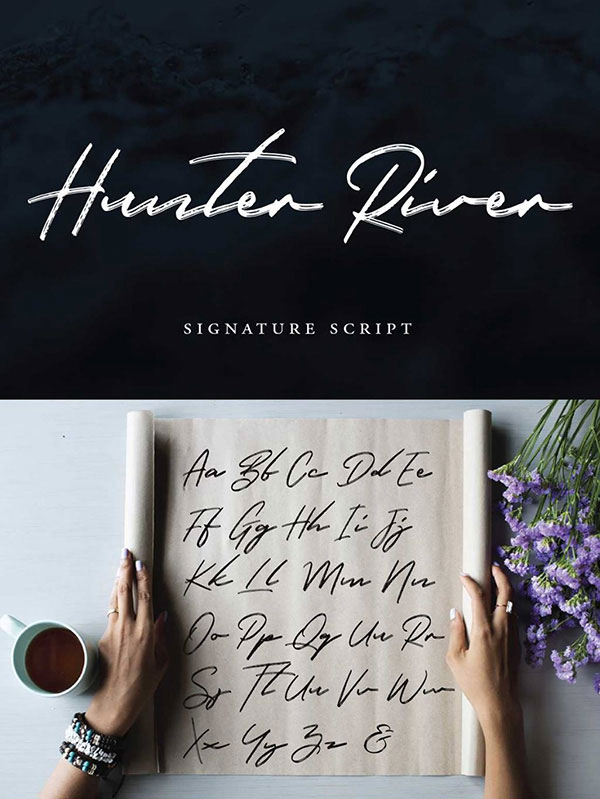
Salmela – Free Calligraphy Font
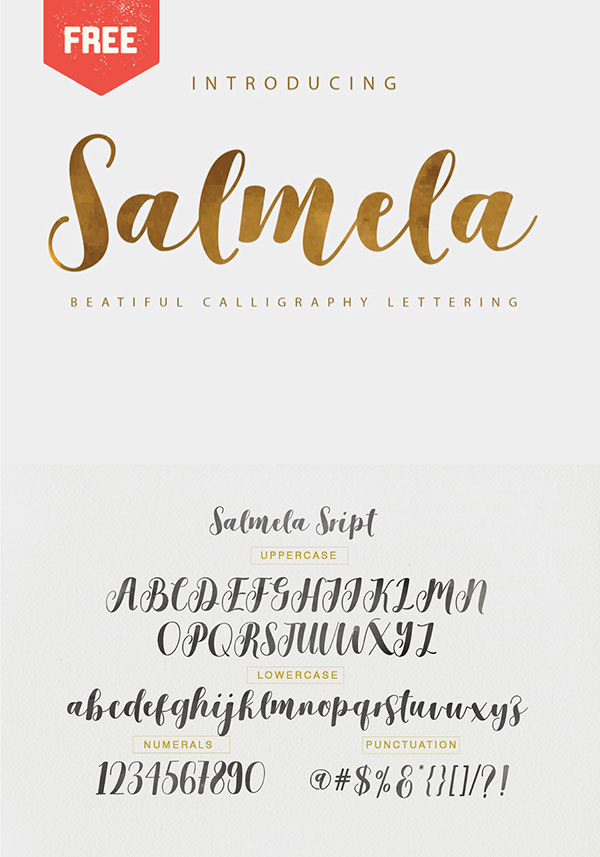
Mindfully – Free Signature Calligraphy Font
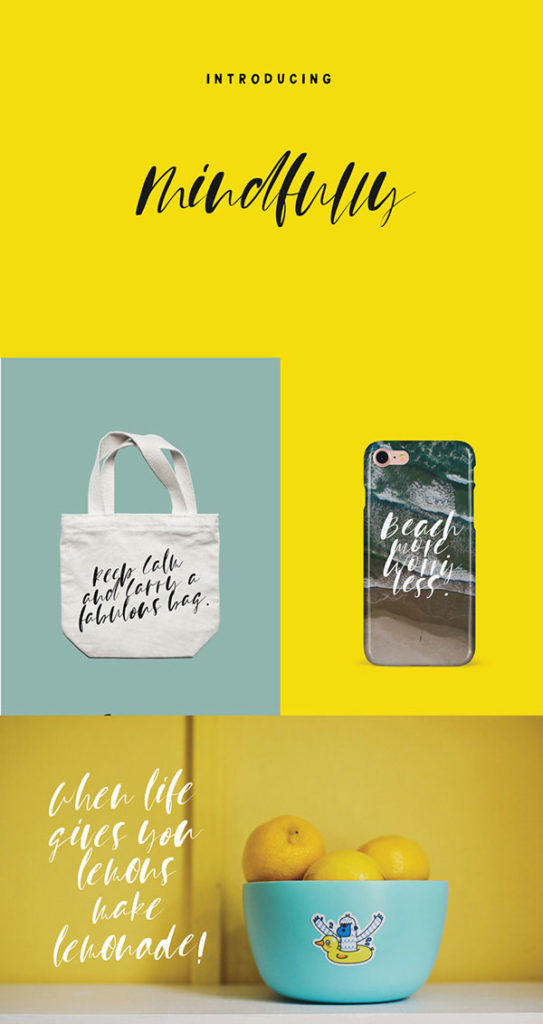
Sydnee Script – Free Font
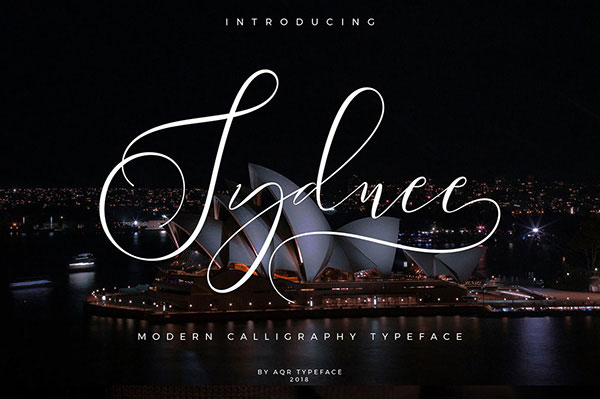
Esteh Script – Free Font
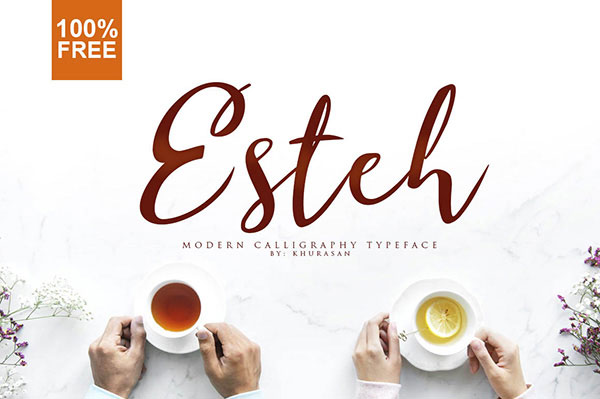
Badhead Typeface
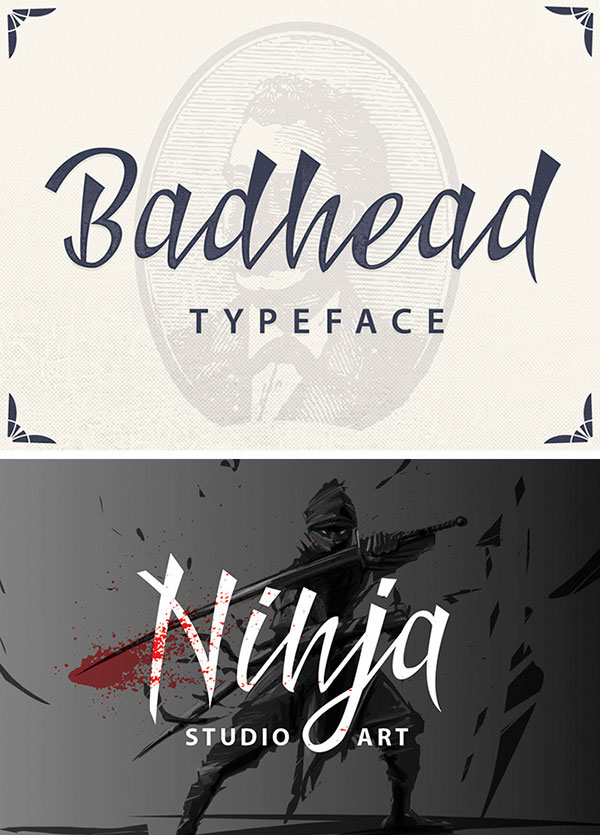
The Woodlands – Free Calligraphy Brush Script Font
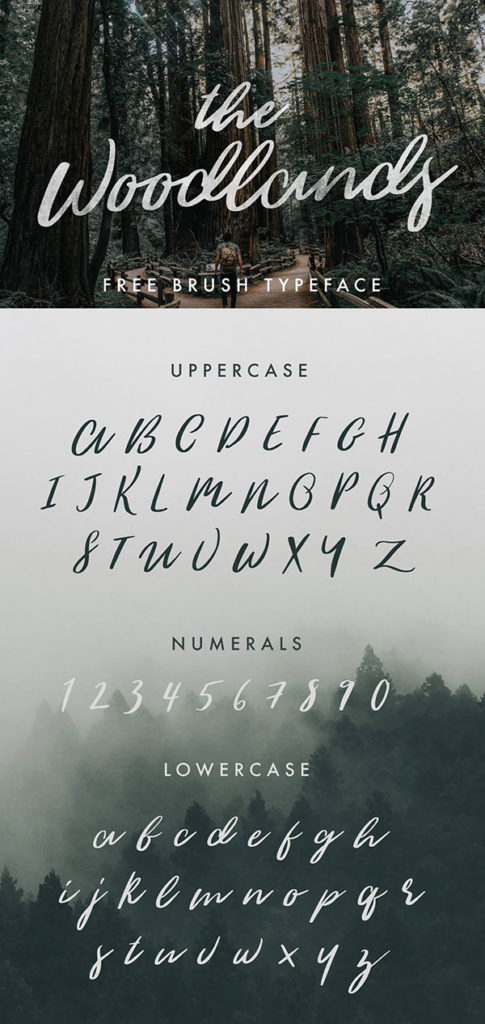
Noelan – Free Modern Calligraphy Font
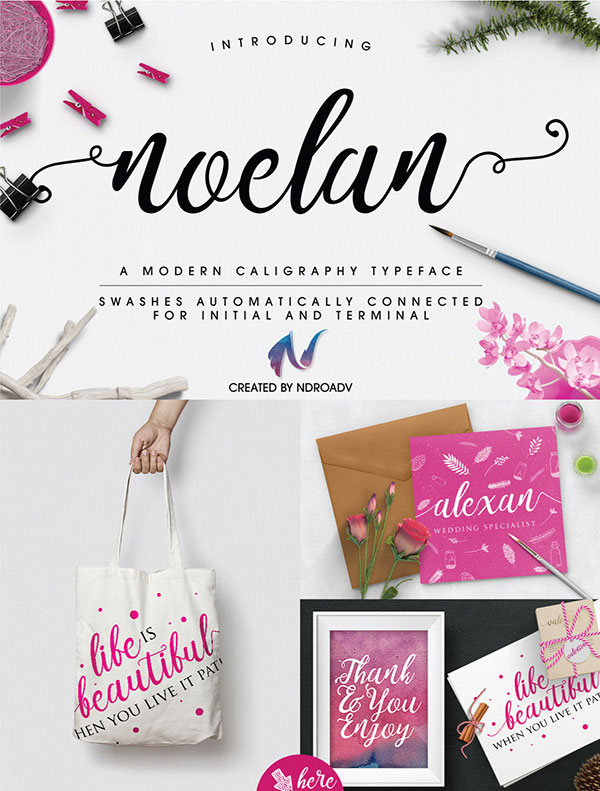
Naira – Free Modern Calligraphy Script Font
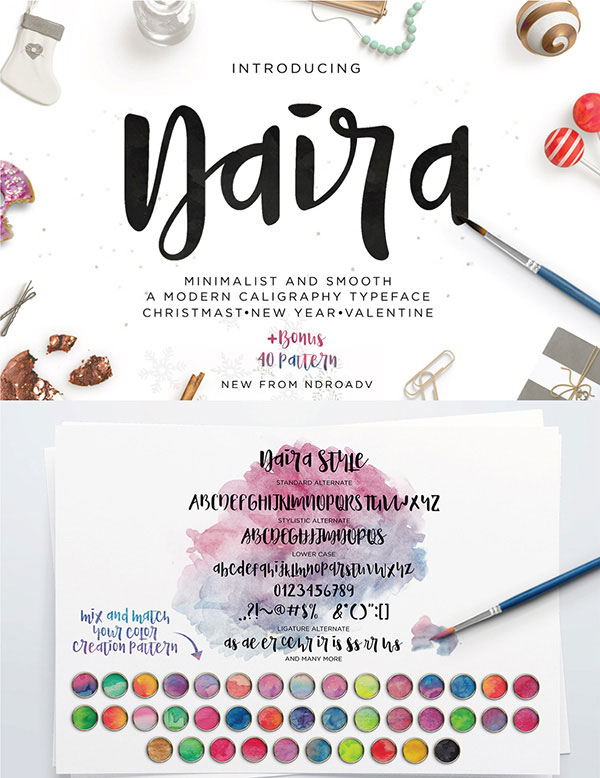
Reshuffle – Free Calligraphy Script Font